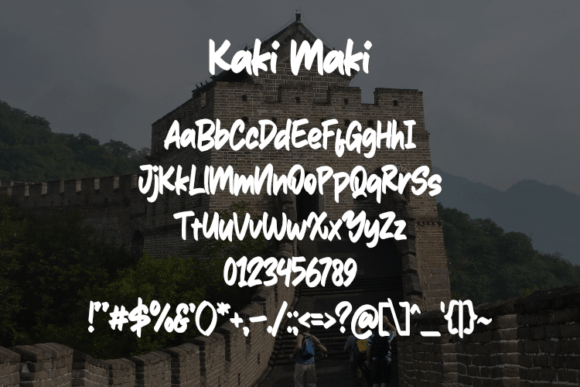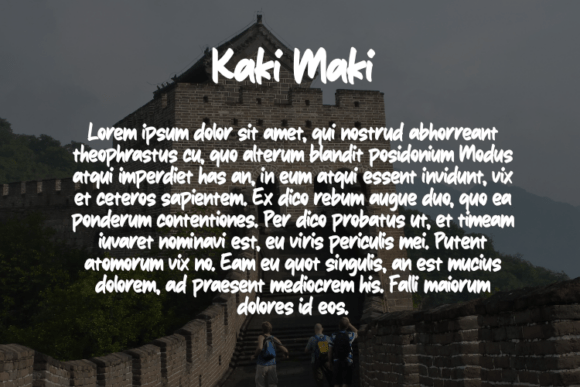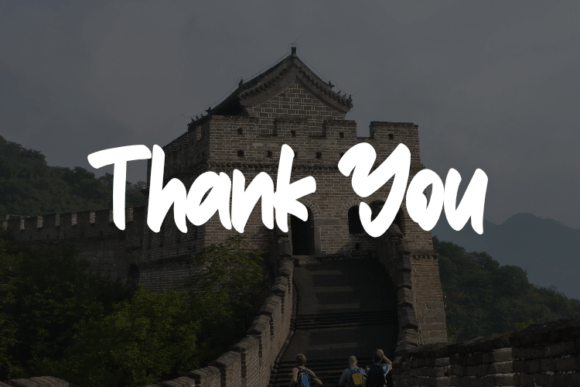
Introduction to Kaki Maki Font
Unveiling “Kaki Maki”, a versatile and trendy font designed specifically for the fashion industry.
Its distinctive appeal makes it an ideal choice for clothing and t-shirt designs, as well as a wide range of other merchandising applications Physically designed, Kaki Maki is fully compatible with diverse design software and comes with an OTF file.
Key Features of Kaki Maki Font
Kaki Maki Font offers exceptional quality and versatility, making it a valuable addition to your design toolkit. Whether you’re creating for personal projects or commercial use, Kaki Maki Font delivers professional results.